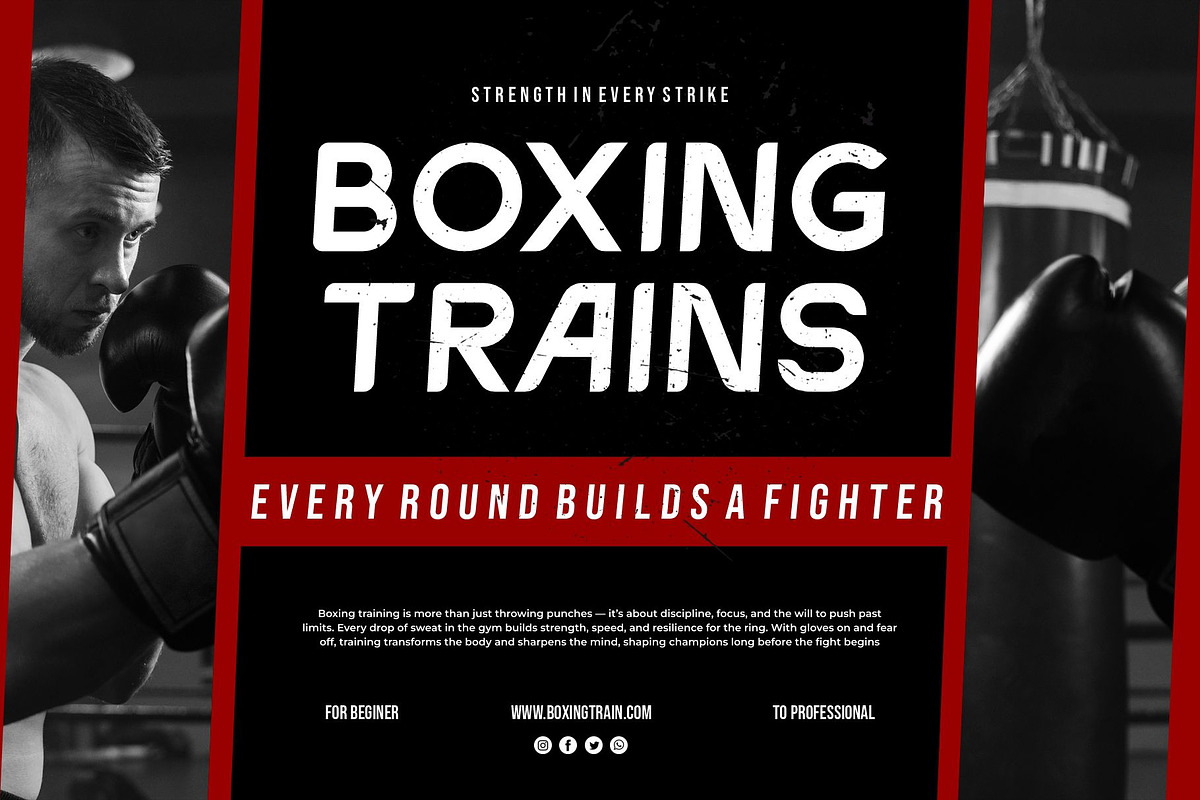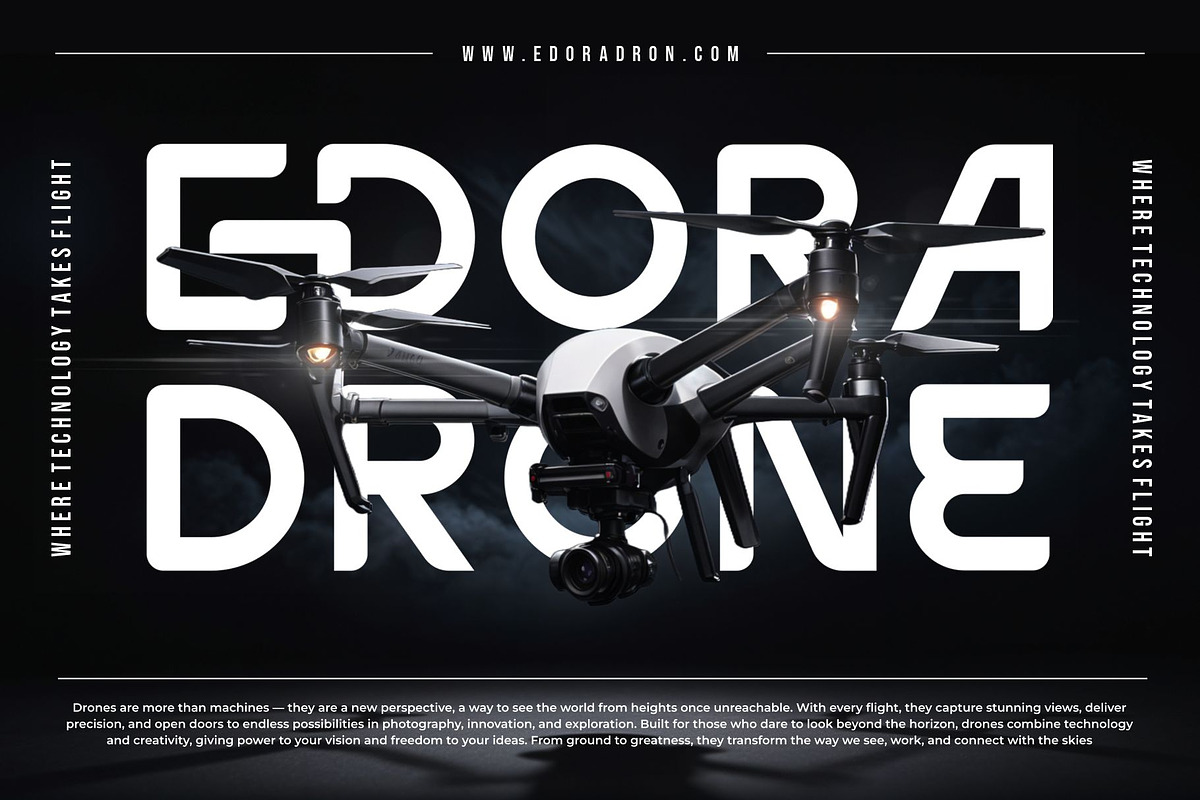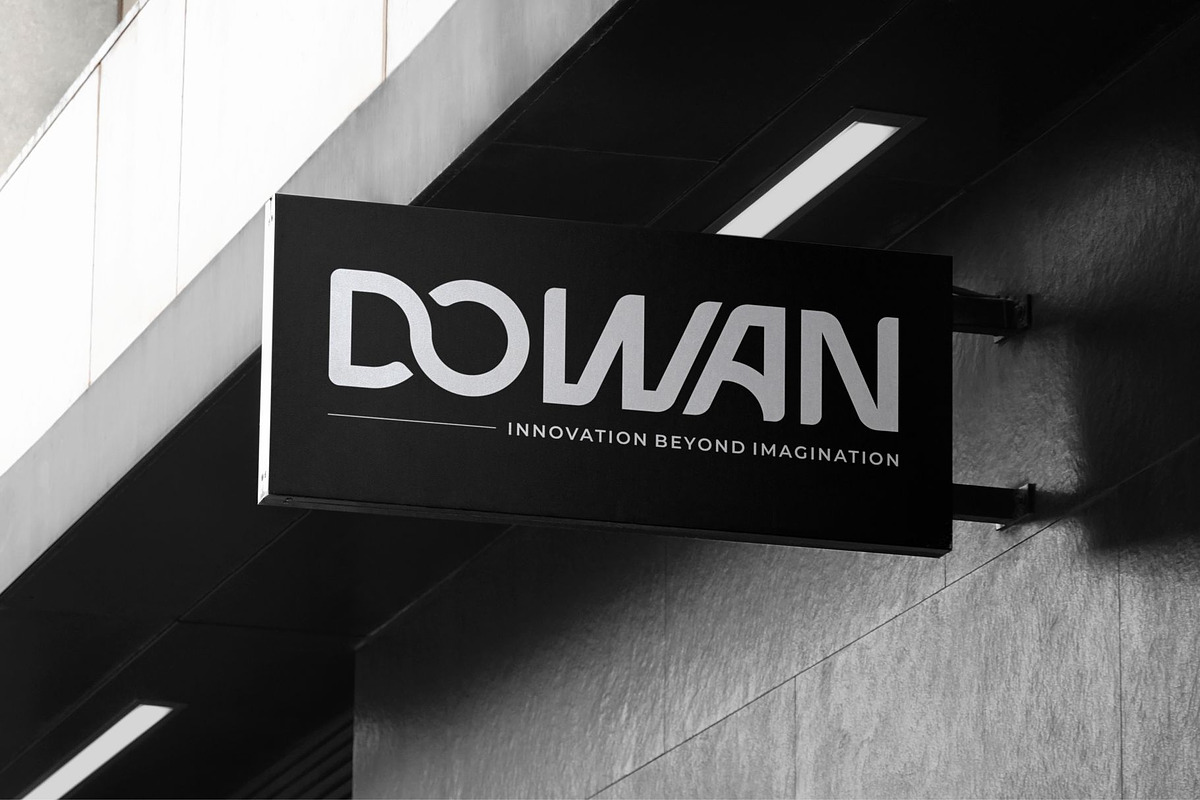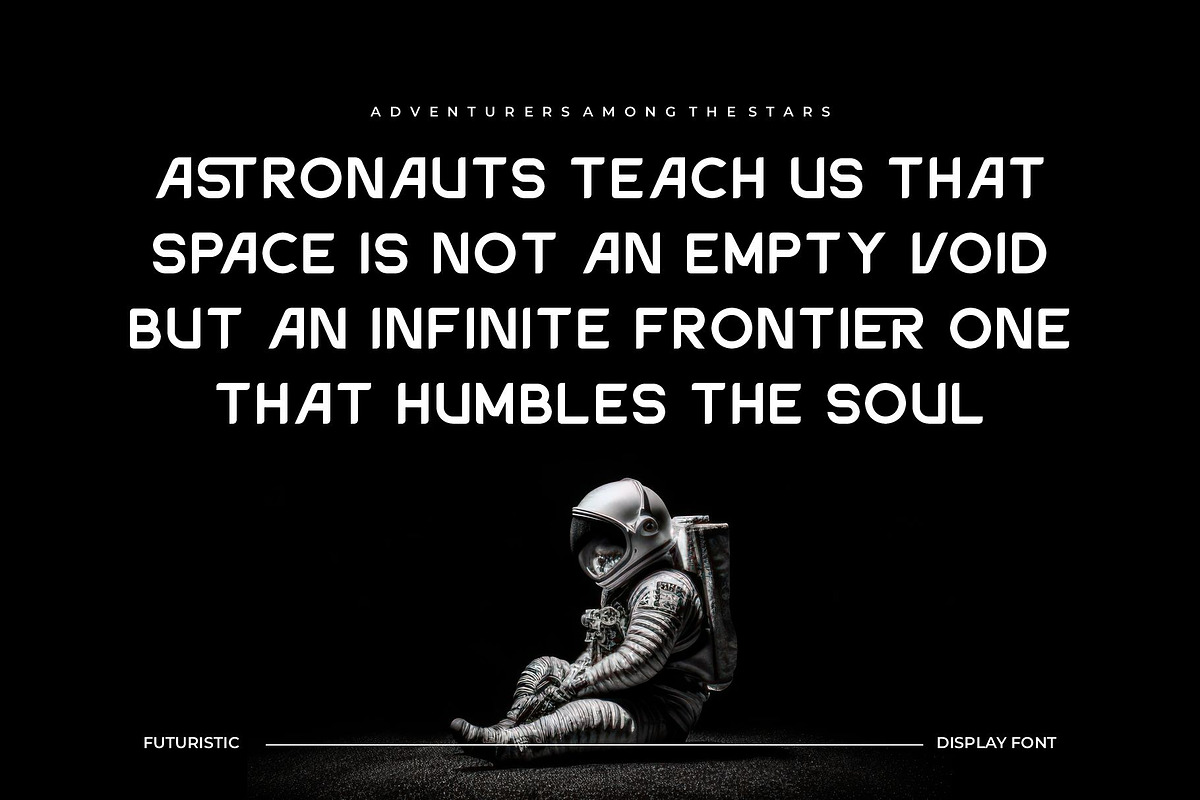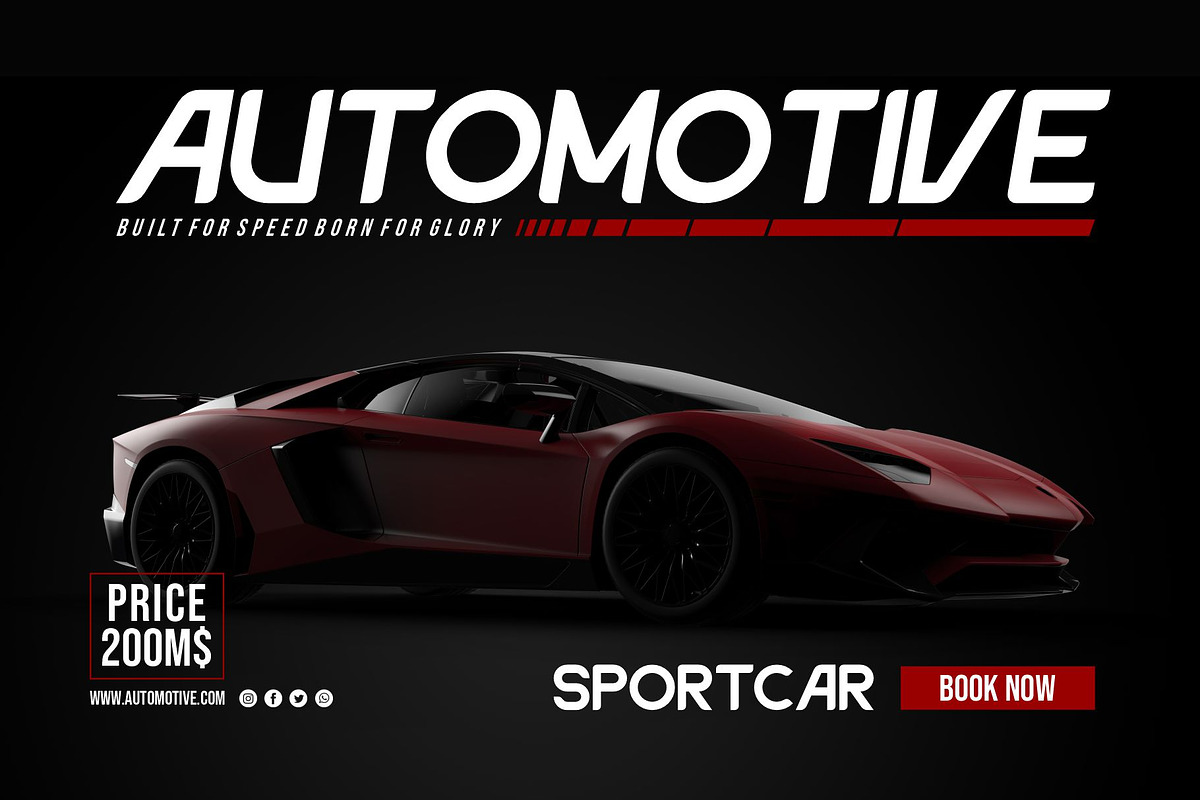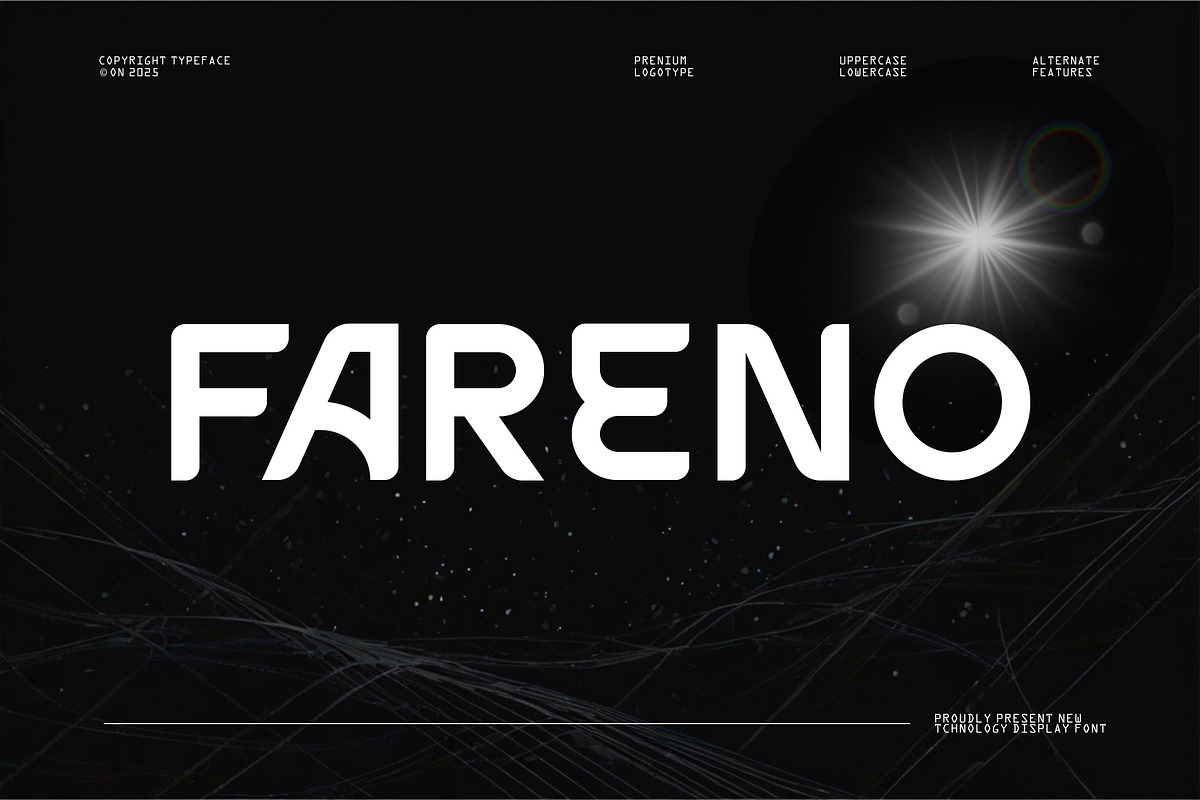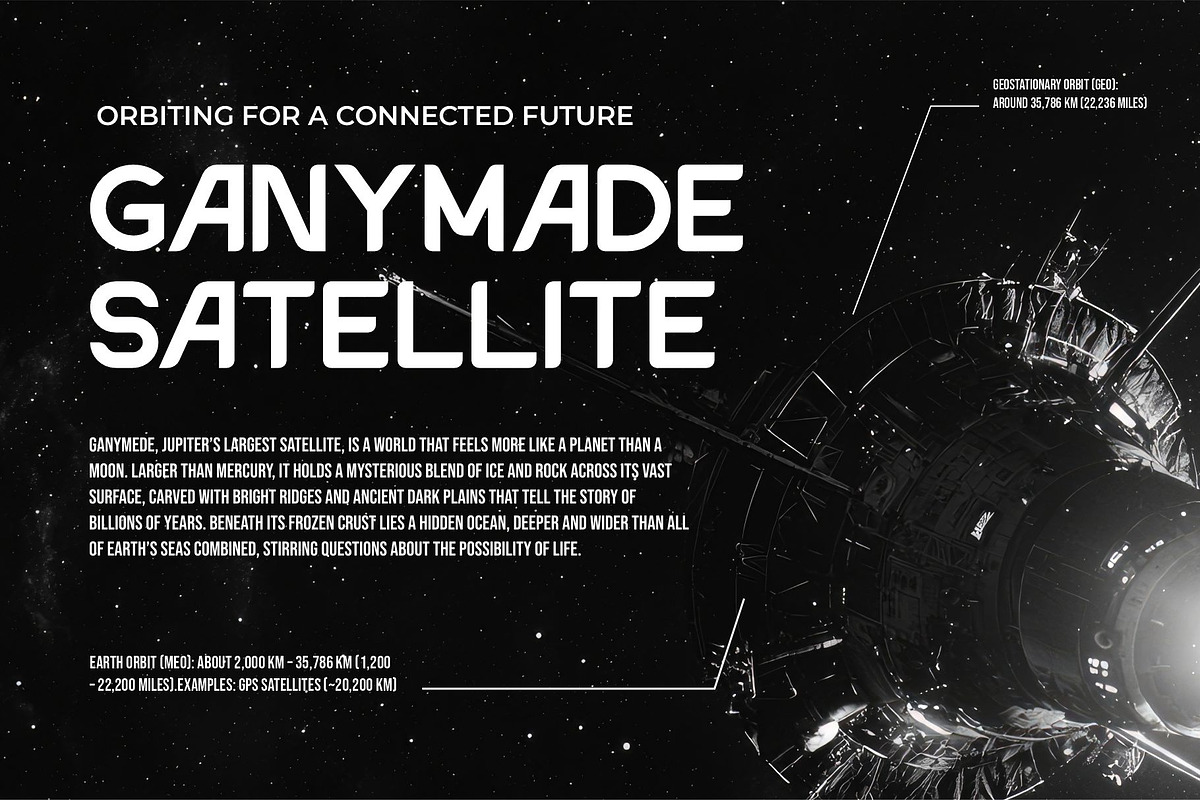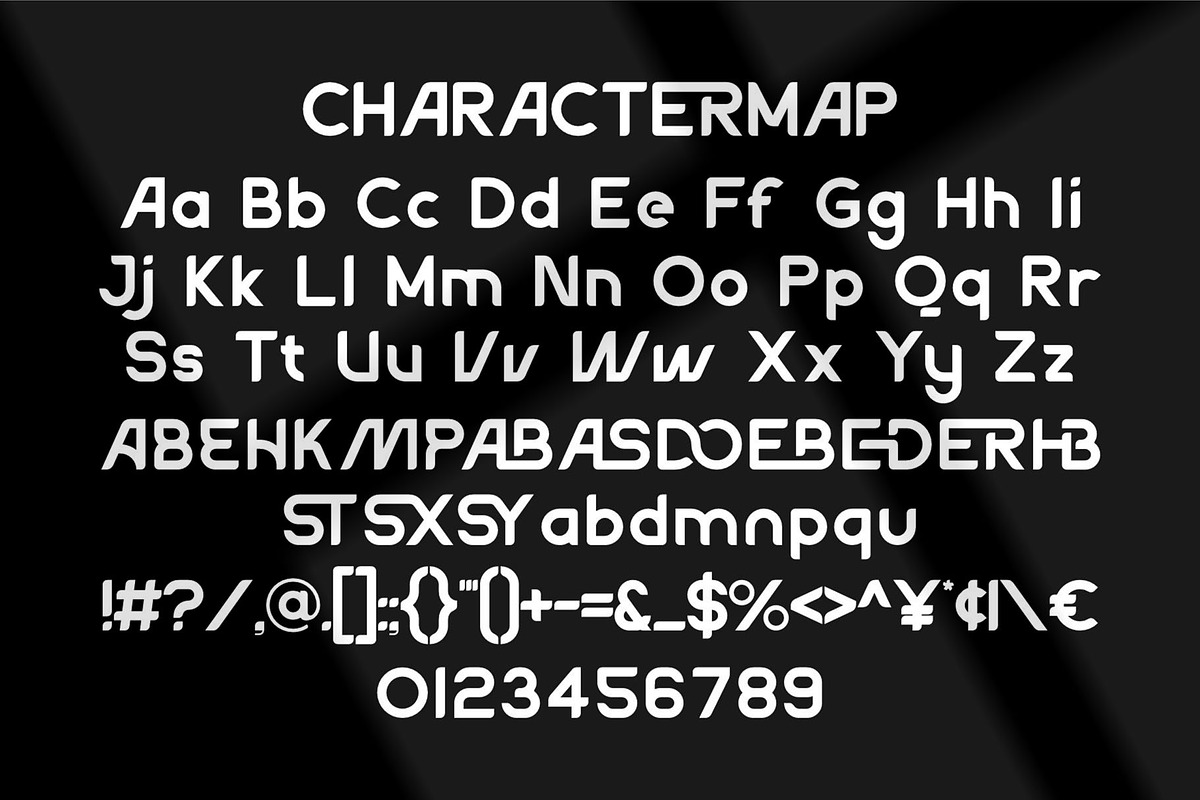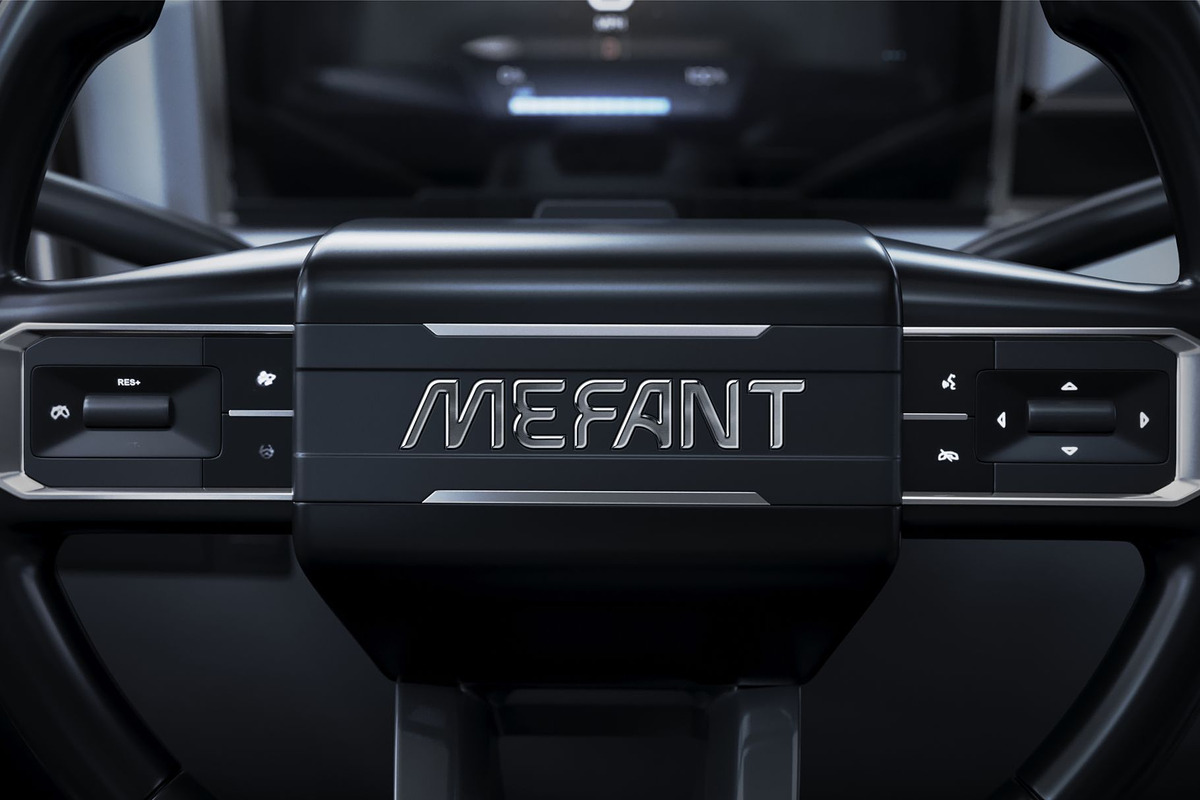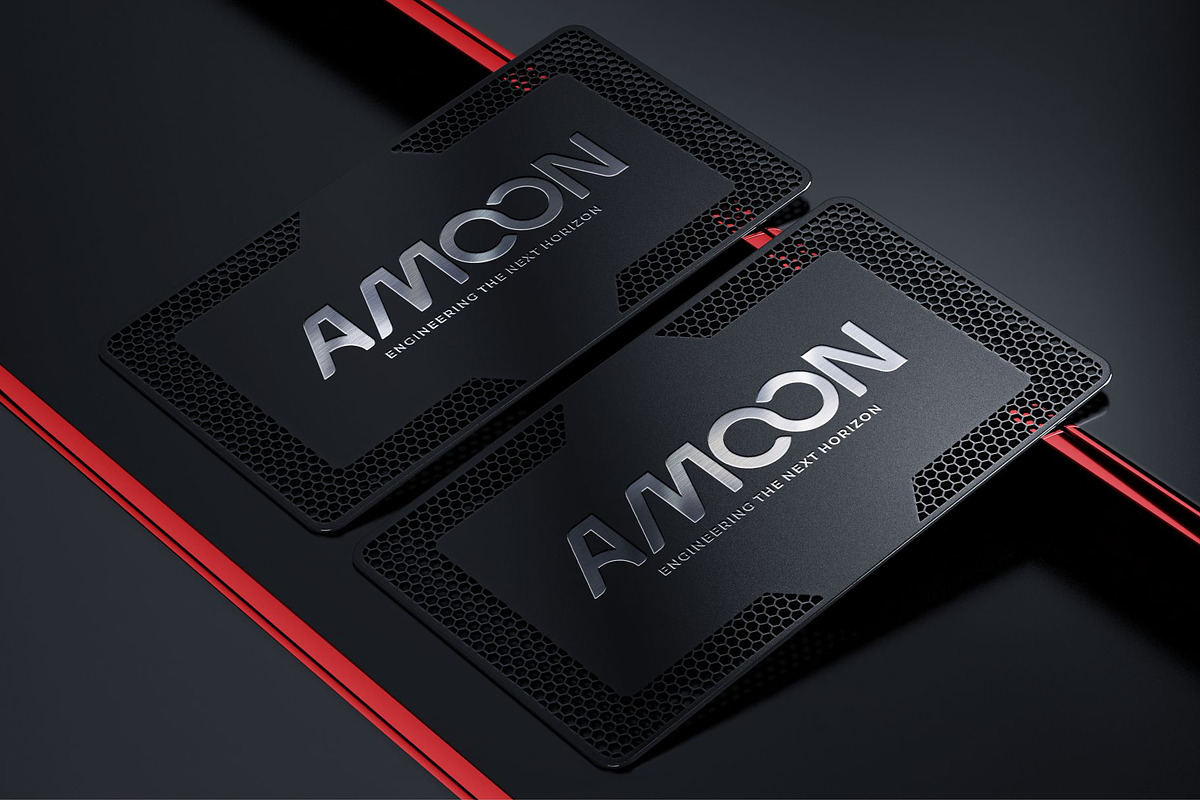
Fareno || Modern Sans Serif Font
Fareno Sans Serif is a modern and futuristic font type for all branding and logo designs. This modern and futuristic sans serif font has a beautiful character. This font is suitable for invitation card designs, cool logos, movie titles, movie names, business cards, book titles, brand names, and various other designs. Fareno Sans Serif is a smooth sans serif font that exudes sophistication and the moment. Its stylish ligatures make this font a perfect partner for any project.